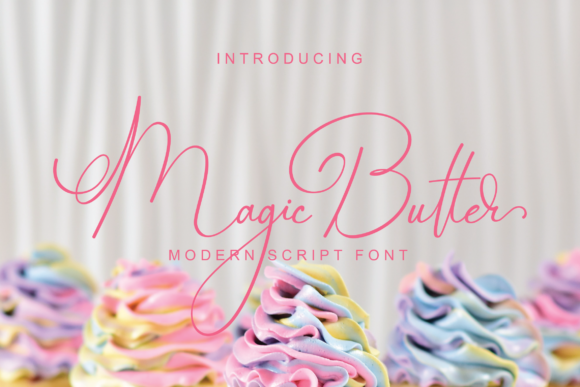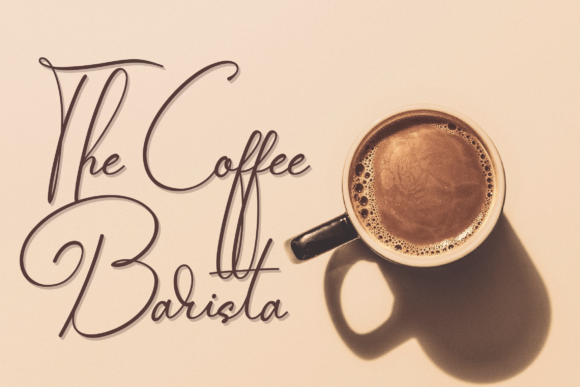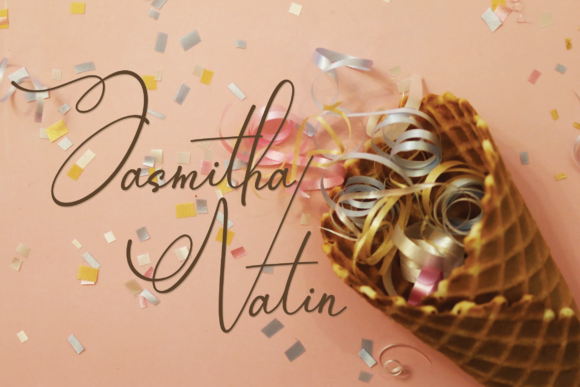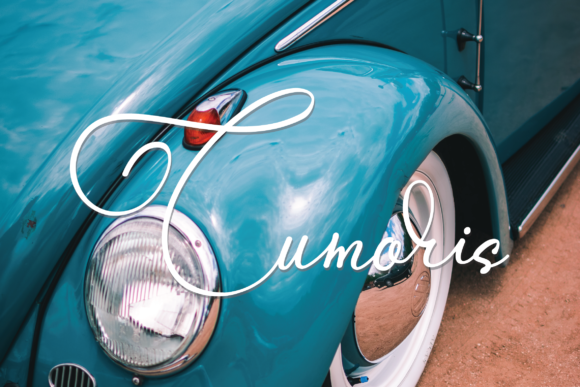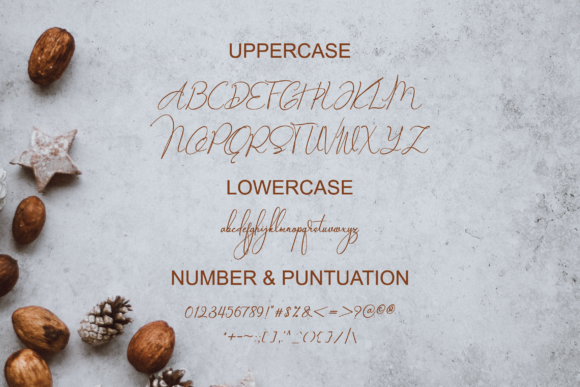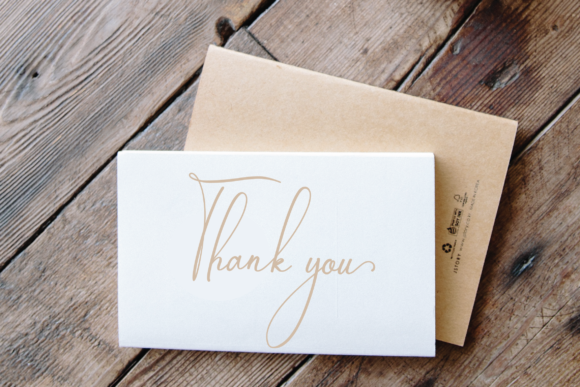
HomeScript FontsMagic Butter Font Script Fonts Magic Butter Font FacebookXPinterestWhatsApp Magic Butter Font Poster 2 Magic Butter Font Poster 3 Magic Butter Font Poster 4 Magic Butter Font Poster 5 Magic Butter Font Poster 6 About Magic Butter Font Magic Butter is a casual and cute script font. Fall in love with its elegant look & feel. DOWNLOAD NOW People also explored Plineparket Font Baster Font Bakery Font Handmade Caslon JNL Font Chandler Zainab Font Sallina Font Simple Monoline Font Beautiful Bunny Font Zabars 364 0 TagsMagic Butter Font Previous articleLattiefa FontNext articleCream Latte Font LEAVE A REPLY Cancel reply Comment: Please enter your comment! Name:* Please enter your name here Email:* You have entered an incorrect email address! Please enter your email address here Website: Save my name, email, and website in this browser for the next time I comment. Personal Use Free Gardening Personal Use Free Read more about this font Roustel Personal Use Free Read more about this font Cline Personal Use Free Read more about this font Happy Rabbit Personal Use Free Read more about this font BLOG Top 7 Google Fonts Alternatives for Faster and Privacy-Friendly Web Design (2025) Top 7 Google Fonts Alternatives for Faster and Privacy-Friendly Web Design (2025) When it comes to web typography, Google Fonts has long been the go-to... Top 10 Handwritten Fonts That Elevate Your Designs 5 Fonts That Will Dominate Design Trends in 2026 Transform Your Website: Elevate Your Typography with 7 Best Web Font Generators